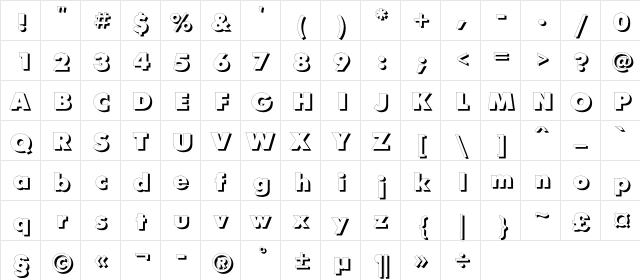
FuturisXShadowC Regular
Design Context for FuturisXShadowC Typeface
FuturisXShadowC has a distinctly futuristic character, with geometric precision and clean angles that feel at home in technology, gaming, and sci-fi contexts.